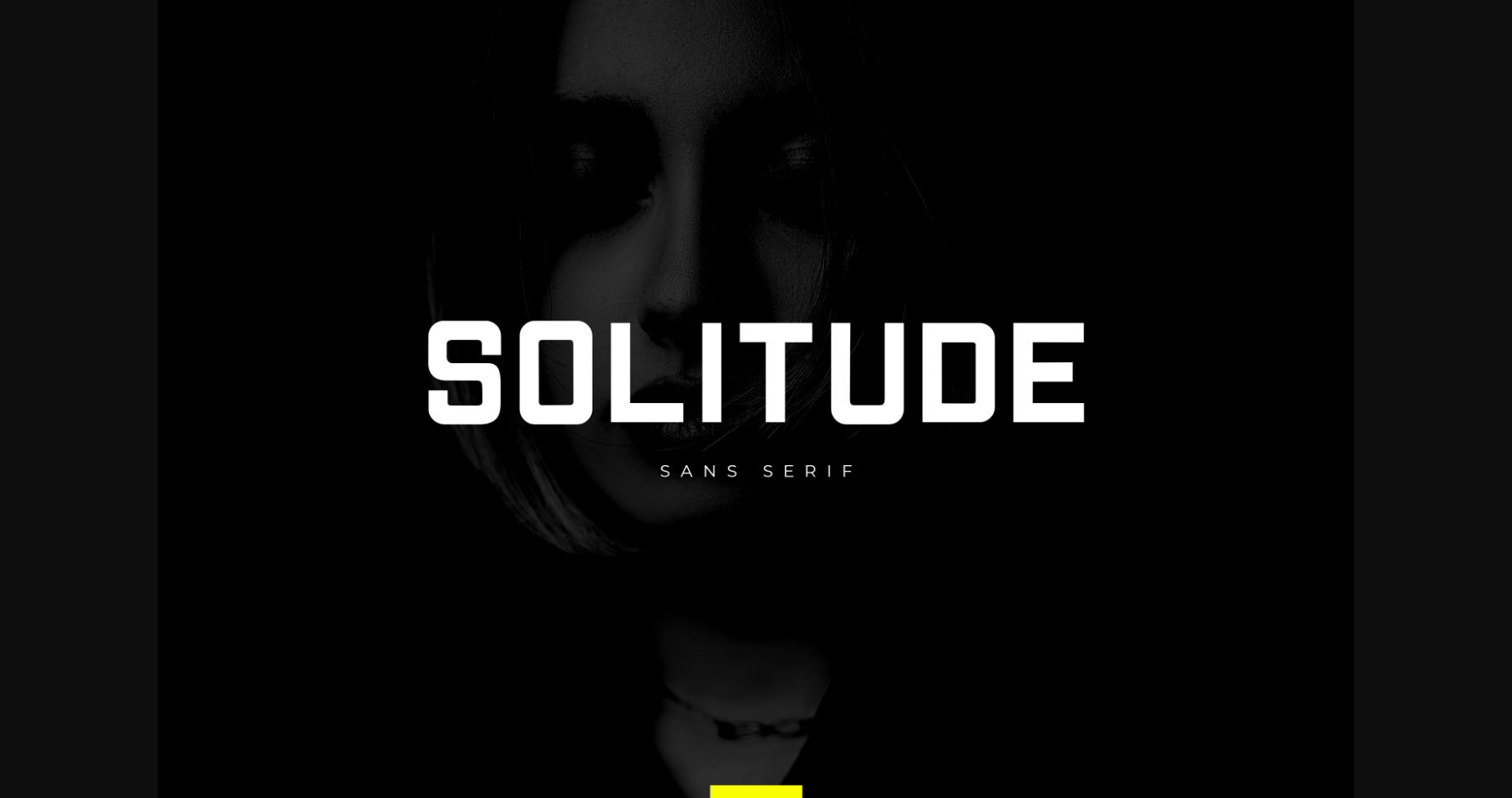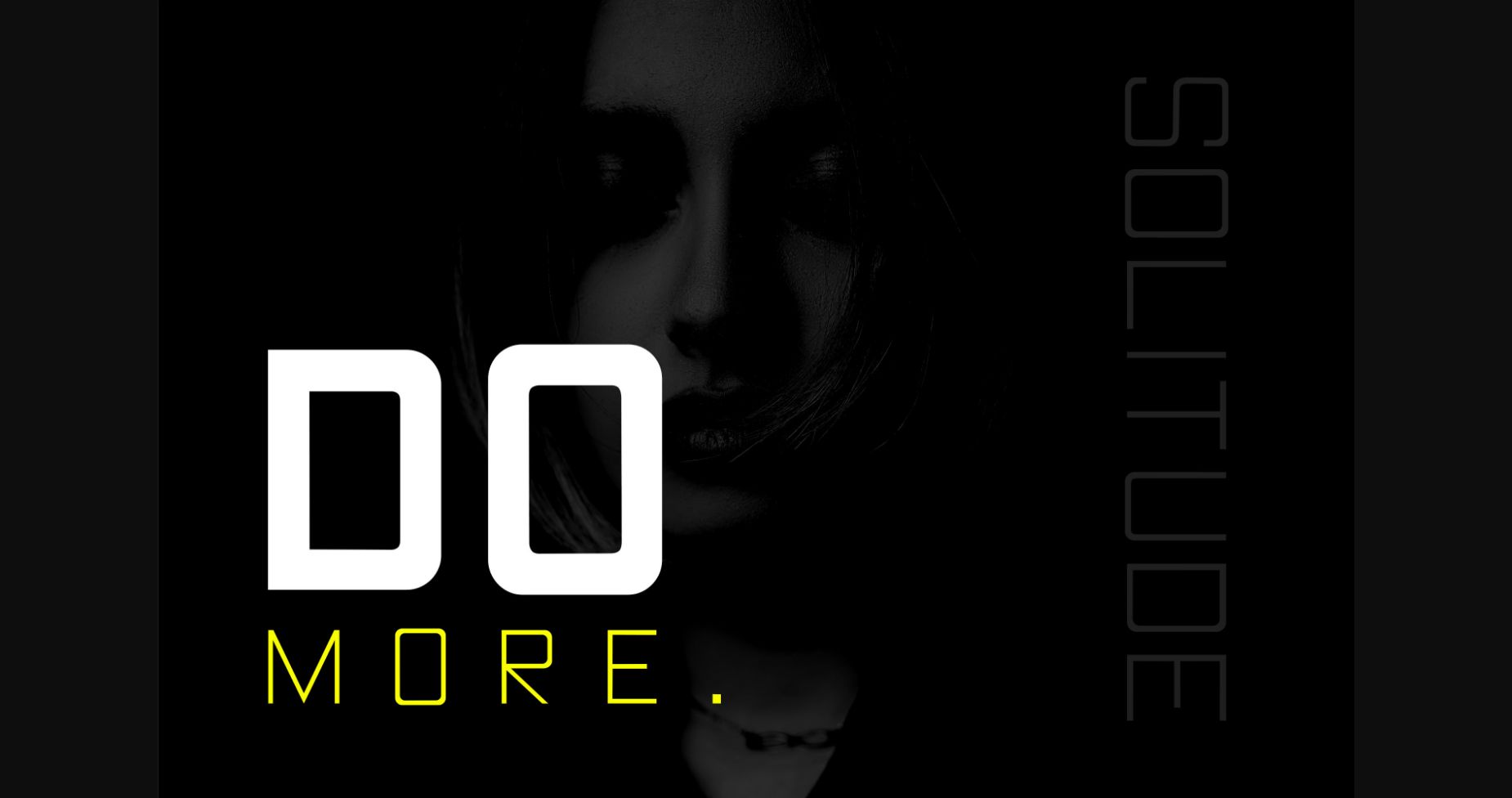
HomeSans Serif FontsSolitude Font Sans Serif Fonts Solitude Font FacebookXPinterestWhatsApp 1 of 6 ... Solitude Font Poster 2... Solitude Font Poster 3... Solitude Font Poster 4... Solitude Font Poster 5... Solitude Font Poster 6... About Solitude Font Solitude is a thick lettered and simple sans serif font. It has a cool, neat and modern look that can be used for logos, branding, invitations, stationery, wedding designs, social media posts, and much more! DOWNLOAD NOW People also explored Dance Blues Font Energy Font Australlia Font The Blester Font Hayate Ballpoint Font Jackarta Font Soulections Script Font Vegan Font 296 0 TagsSolitude Font Previous articleBetter Vintage FontNext articleFeatheriest Font LEAVE A REPLY Cancel reply Comment: Please enter your comment! Name:* Please enter your name here Email:* You have entered an incorrect email address! Please enter your email address here Website: Save my name, email, and website in this browser for the next time I comment. Personal Use Free Vivacious Personal Use Free Read more about this font Boldace Personal Use Free Read more about this font BD Pipe Personal Use Free Read more about this font Monogram Veg Personal Use Free Read more about this font BLOG Fonts That Capture the Spirit of New York City New York City is more than just a place—it’s an experience, a rhythm, a visual language... Best Fonts for YouTube Videos: Make Your Thumbnails Stand Out Where to Buy American Fonts Online in 2024 Elegant Wedding Invitation Fonts – Handwritten & Script Fonts